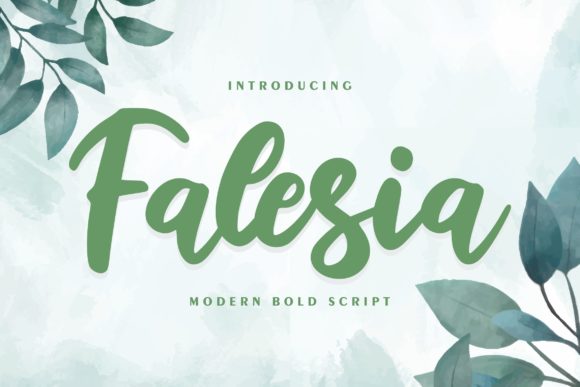
Falesia Font: The Perfect Choice for Designers and Crafters
Falesia Font is a stunning, bold lettered handwritten font that has taken the design world by storm. Its incredibly versatile style makes it an ideal choice for a wide range of creative projects, from wedding invitations and stationery art to social media posts and more. In this article, we’ll dive into the world of Falesia Font, exploring its features, benefits, and uses, and why it’s a must-have for designers and crafters.
What is Falesia Font?
Falesia Font is a gorgeous, handcrafted font that exudes elegance and sophistication. Its bold, cursive script is perfect for making a statement, while its versatility ensures it can be used in a variety of contexts. Whether you’re looking to create beautiful wedding invitations, eye-catching social media posts, or stunning stationery art, Falesia Font is the perfect choice.
Key Features of Falesia Font
- Bold and Elegant: Falesia Font features a bold, cursive script that’s perfect for making a statement.
- Versatile: Its versatility ensures it can be used in a wide range of creative projects, from wedding invitations to social media posts.
- Handcrafted: Falesia Font is a handcrafted font, giving it a unique, personal touch.
- Easy to Read: Despite its bold style, Falesia Font is easy to read, making it perfect for body text and headlines.
Benefits of Using Falesia Font
So, why should you choose Falesia Font for your next project? Here are just a few benefits of using this gorgeous font:
- Adds Elegance and Sophistication: Falesia Font adds a touch of elegance and sophistication to any project, making it perfect for wedding invitations, stationery art, and more.
- Stand Out from the Crowd: Its bold, unique style ensures your project will stand out from the crowd, grabbing the attention of your audience.
- Time-Saving: Falesia Font is easy to use and customize, saving you time and effort in your design process.
- High-Quality: Falesia Font is a high-quality font, ensuring it will look great in any project, whether printed or digital.
Uses of Falesia Font
Falesia Font is incredibly versatile, making it perfect for a wide range of creative projects, including:
- Wedding Invitations: Create beautiful, elegant wedding invitations that set the tone for your special day.
- Stationery Art: Add a touch of elegance to your stationery art, making it perfect for gifts or personal use.
- Social Media Posts: Create eye-catching social media posts that grab the attention of your audience.
- Branding and Packaging: Use Falesia Font to create stunning branding and packaging that sets your business apart.
Tips for Using Falesia Font
Here are a few tips for getting the most out of Falesia Font:
- Experiment with Colors: Try out different colors to see what works best with Falesia Font.
- Mix and Match: Combine Falesia Font with other fonts to create a unique, eye-catching look.
- Pay Attention to Spacing: Make sure to adjust the spacing between letters and words to ensure Falesia Font looks its best.
Falesia Font is a gorgeous, bold lettered handwritten font that’s perfect for designers and crafters. Its incredibly versatile style makes it an ideal choice for a wide range of creative projects, from wedding invitations and stationery art to social media posts and more. With its bold, elegant style, ease of use, and high-quality design, Falesia Font is a must-have for anyone looking to add a touch of sophistication to their projects.